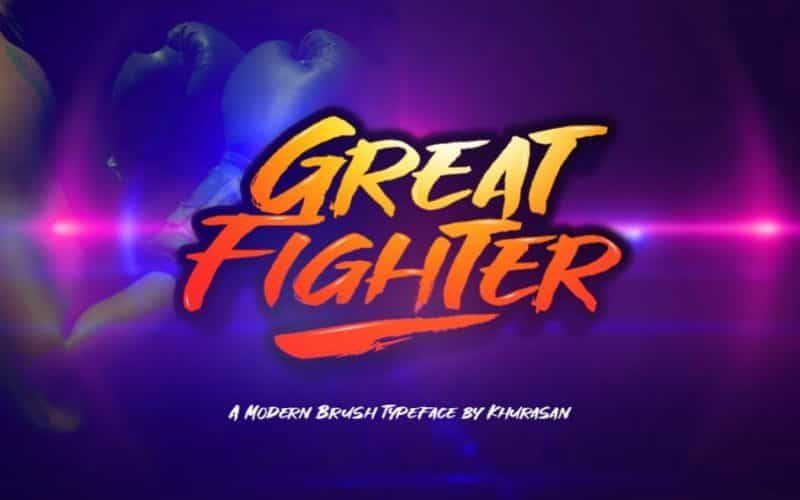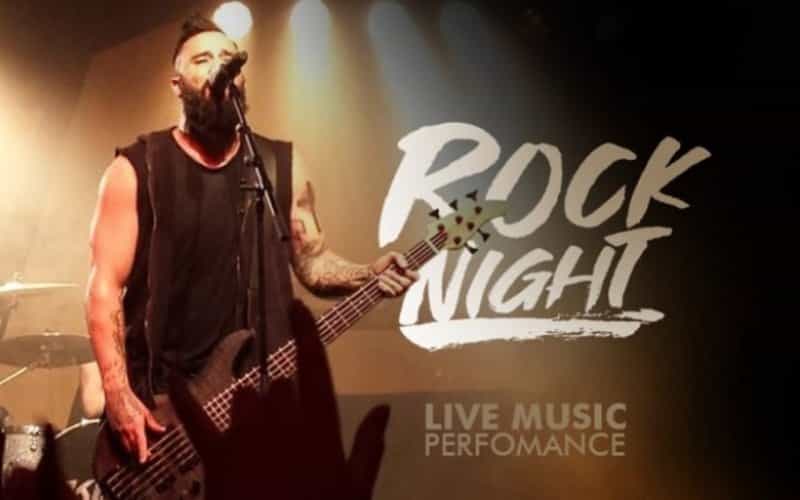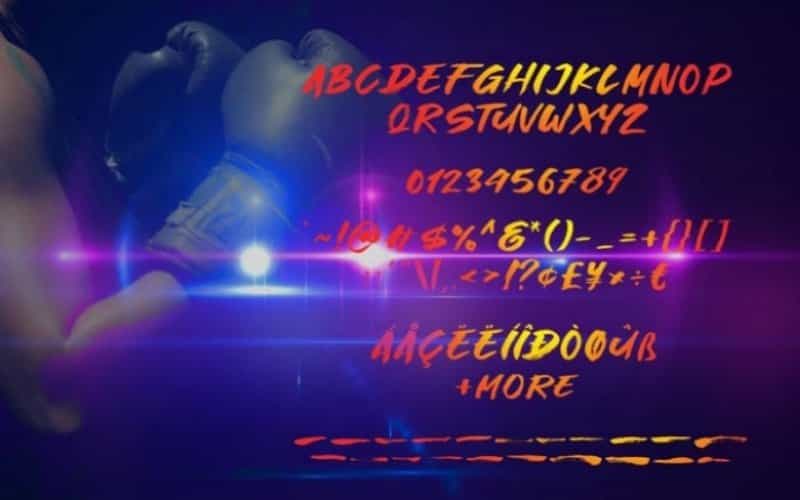
The Great Fighter is a new hand drawn, elegant, vintage style font and included a lots of characters. The Great Fighter font has all the capital and small-case letters, multilingual letters, symbols, currency, numbers and punctuations.